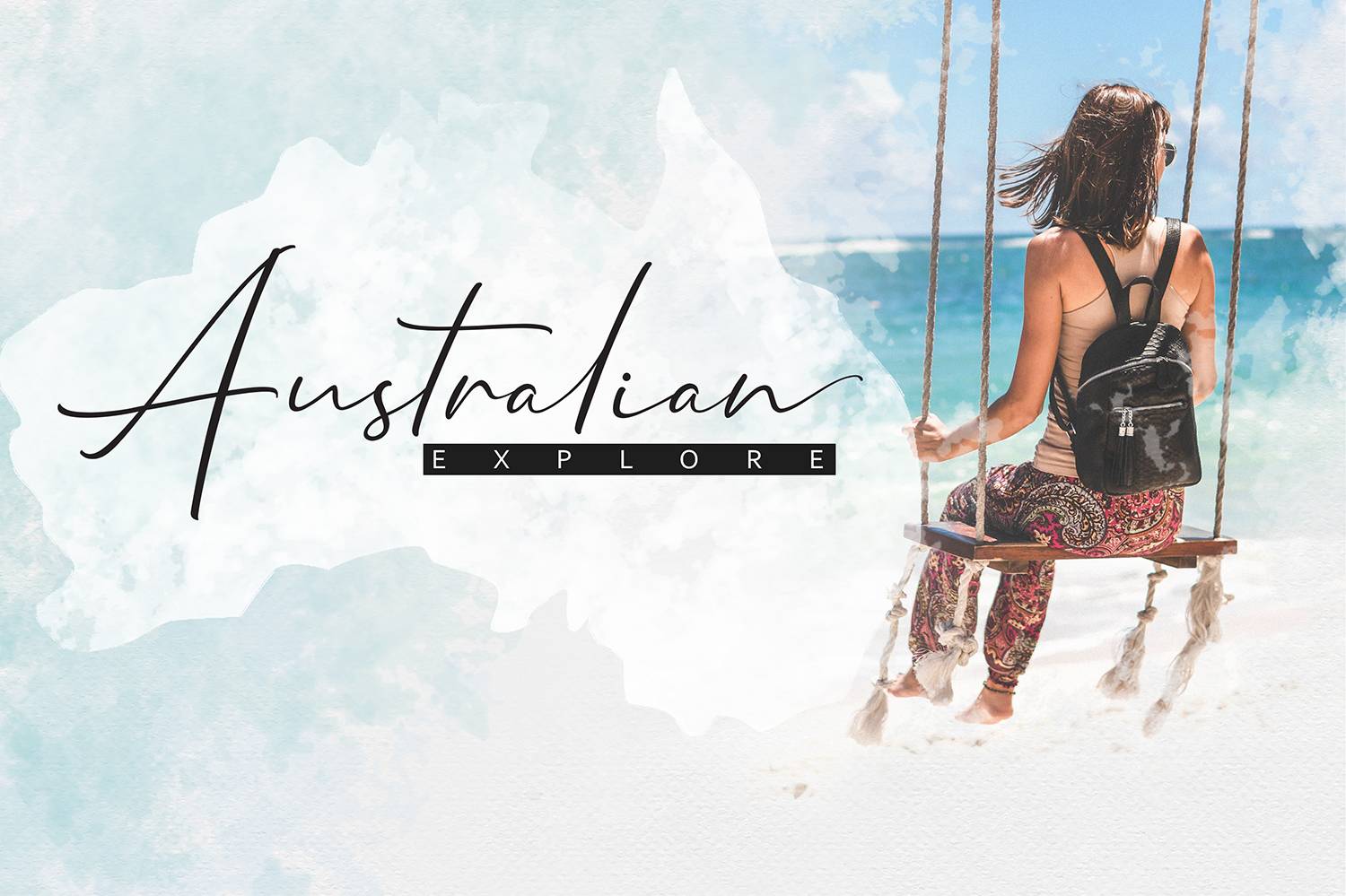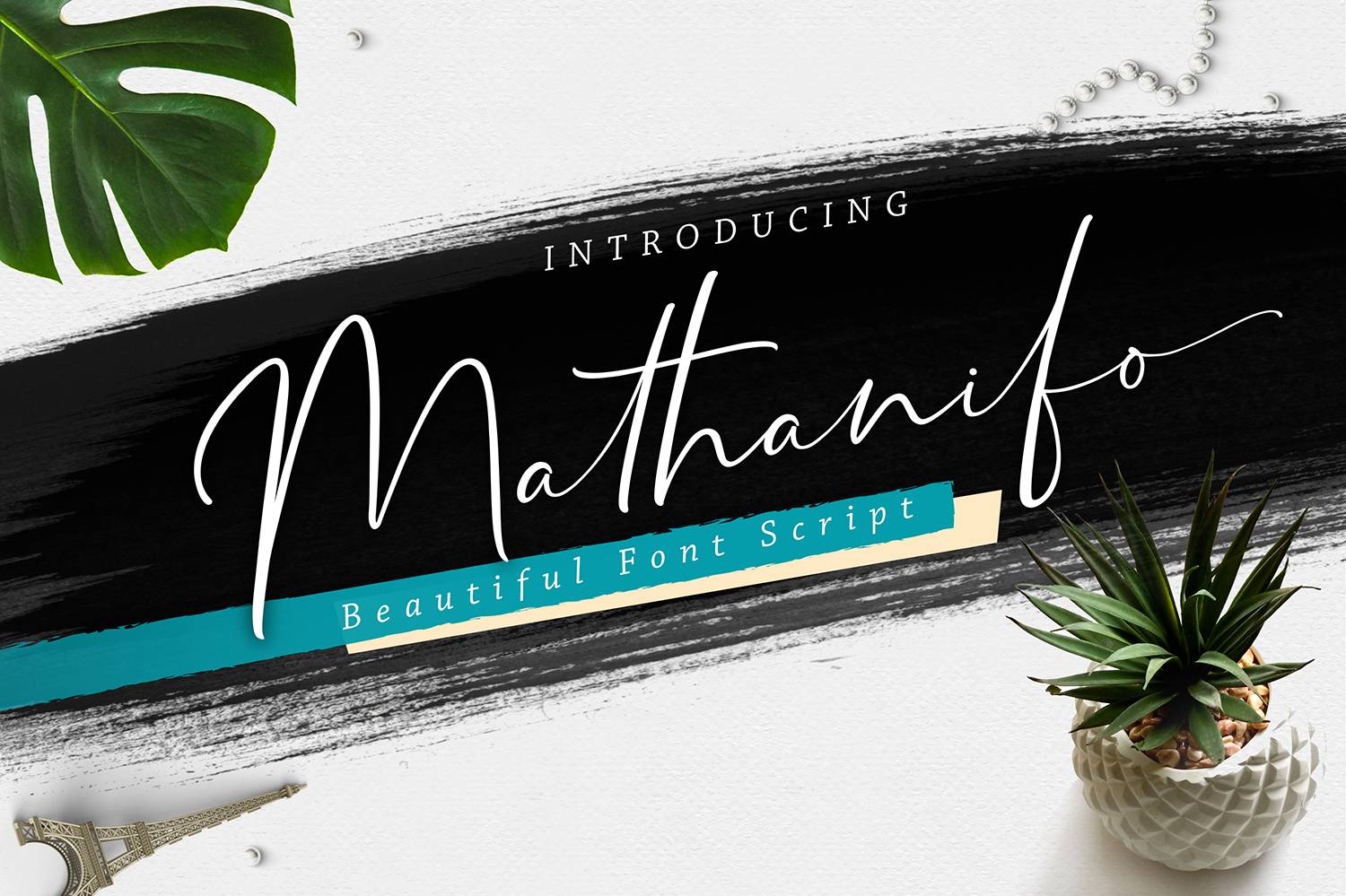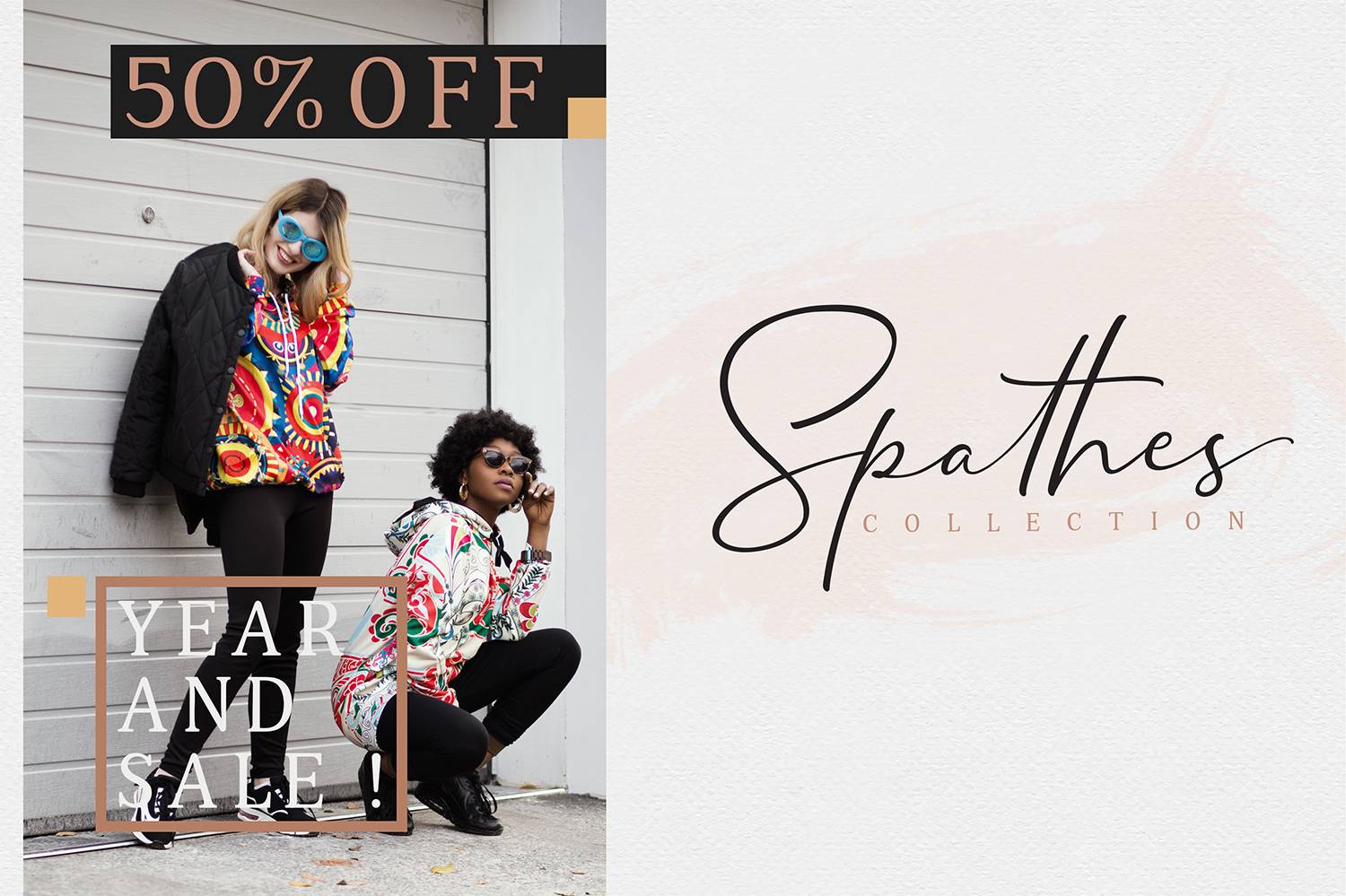
Mathanifo Script is an elegant and delicate handwritten font characterized by its fine, flowing strokes and tall, slender letterforms. It exudes a sophisticated and romantic feel, making it ideal for wedding invitations, fashion branding, and luxury packaging where a personal, graceful touch is desired. This font works best in display settings such as logos and headlines, lending a refined and airy aesthetic without sacrificing readability.
Mathanifo Script Font
About Mathanifo Script Font